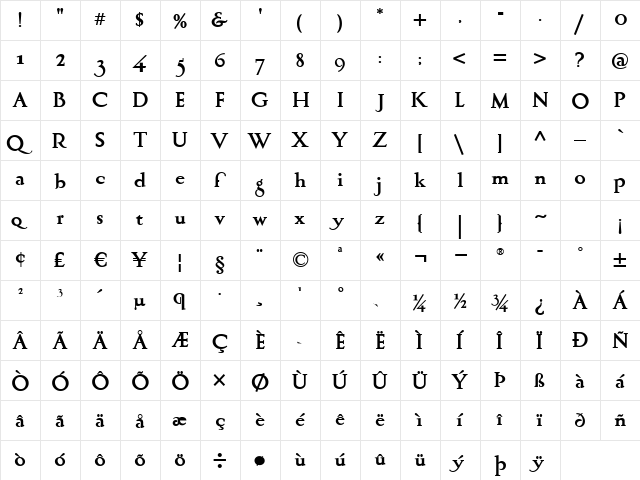
Mrs Bathhurst Nf Semi Bold Regular
Design Context for Mrs Bathhurst Nf Semi Bold Typeface
Mrs Bathhurst Nf Semi Bold offers clean, dependable letterforms without strong stylistic allegiance, making it a practical choice for designers who need flexibility. The heavy weight commands attention and anchors typographic hierarchies.